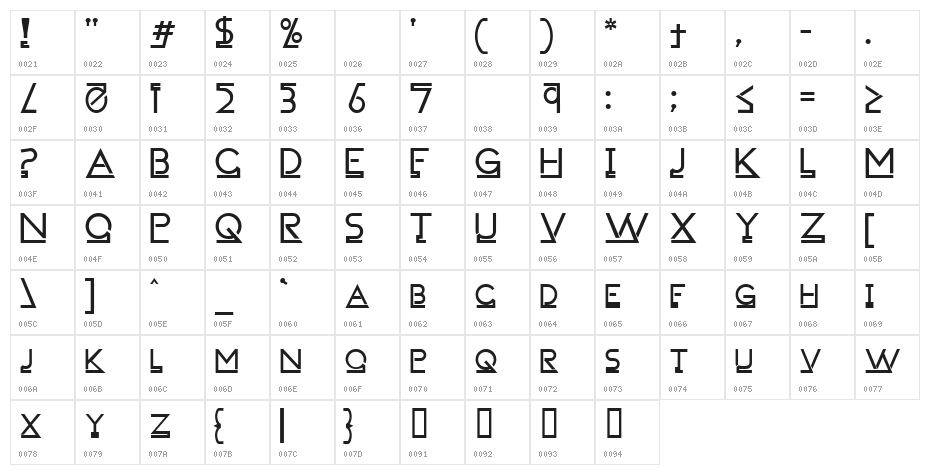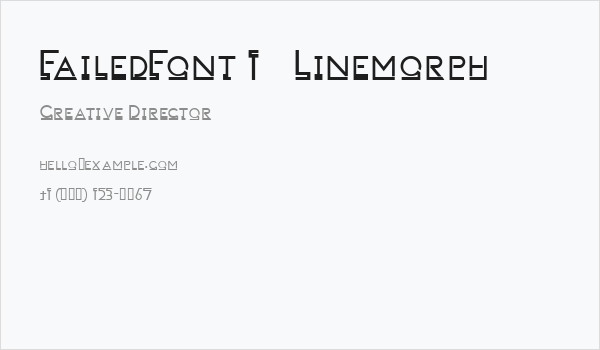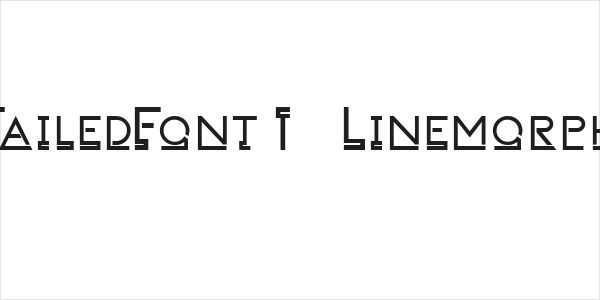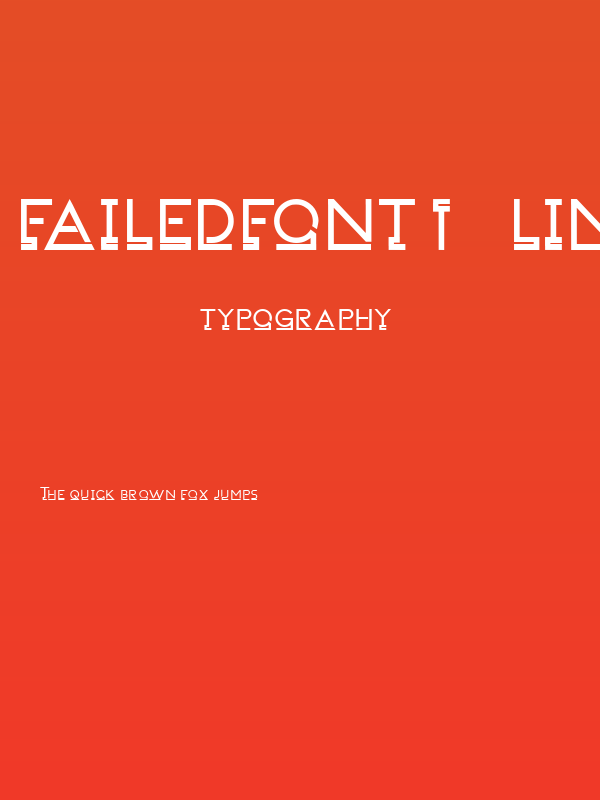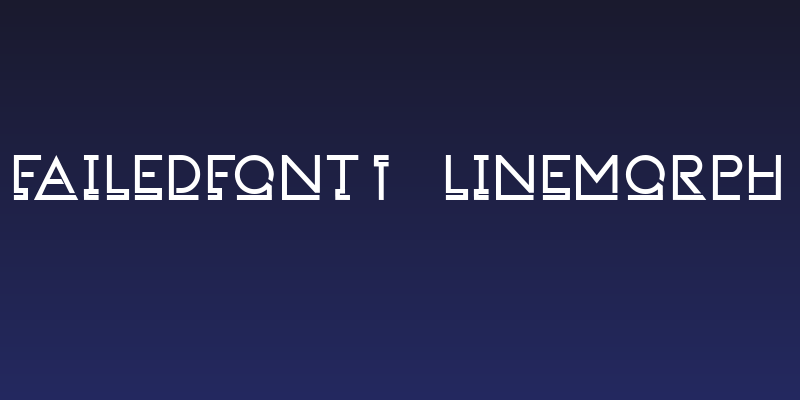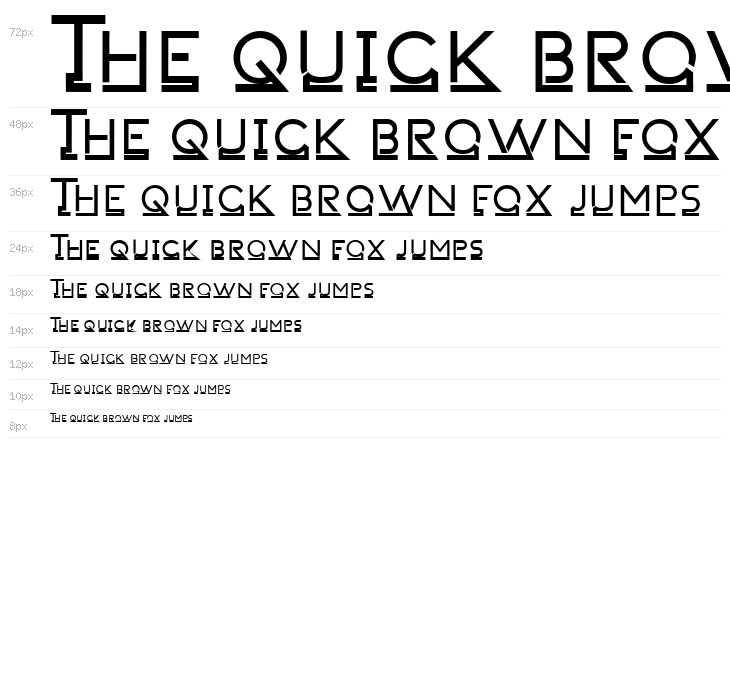
FailedFont 1 Linemorph Font
FailedFont 1 Linemorph Description
This font exhibits a modern and geometric style, characterized by its bold and angular letterforms. The uppercase letters are distinct with sharp edges and a consistent baseline, creating a sense of uniformity and precision. The lowercase letters maintain the same geometric aesthetic, offering a cohesive look across the typeface. Numbers and special characters follow the same design principles, ensuring versatility in various applications. The font's unique structure makes it suitable for contemporary design projects, where a strong visual impact is desired.
| Proposed Projects | Ideal for modern branding, posters, and digital media where a striking and contemporary look is needed. |